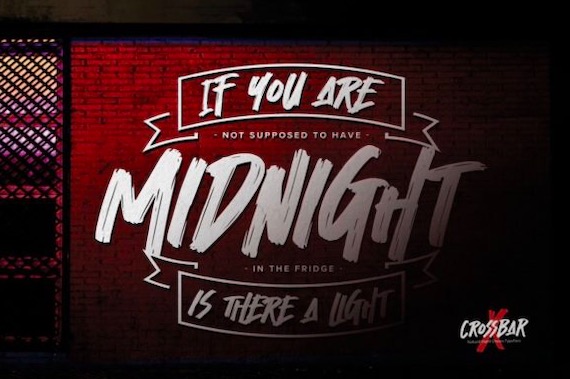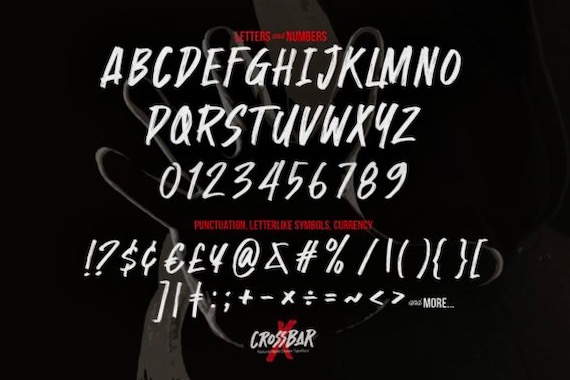
Crossbar Font is a brushed handwritten script typeface that was created and shared by Gassstype Studio. Besides, this script font has a display font feel that has a gloomy, street art vibe. Crossbar font is suitable for designs such as t-shirts, sportswear, logos, advertisements, clothing, and more.
Crossbar Brush Script Font